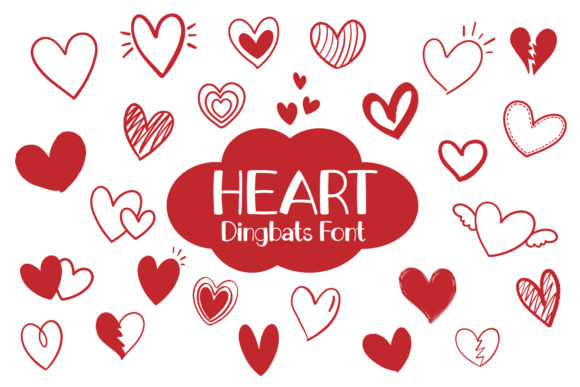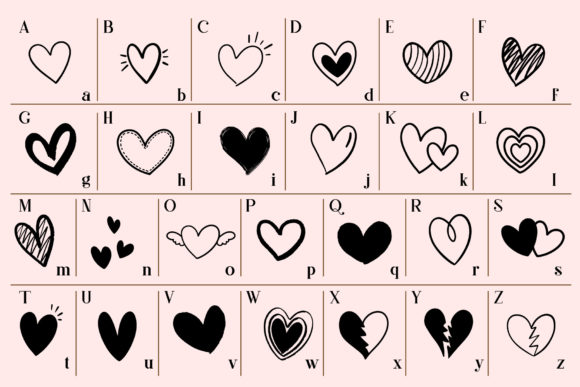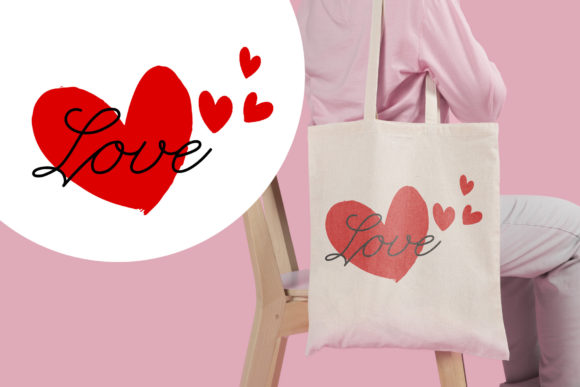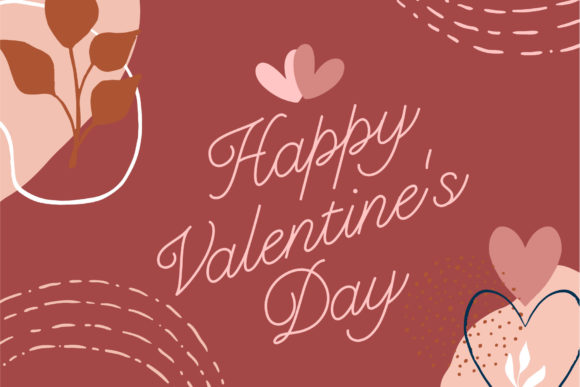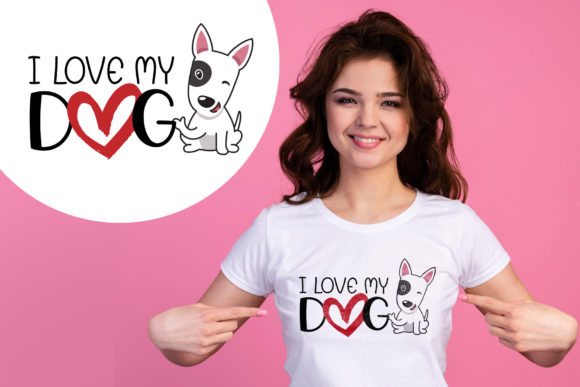
Heart Font
About Heart Font
Heart is a lovely dingbats font that is perfect for a wide range of projects. With its collection of heart-shaped glyphs, it adds a touch of romance, sweetness, and charm to any design.
Whether you’re working on blog posts, advertisements, invitations, greeting cards, planners, photo albums, decorations, or any other creative project, Heart can be a wonderful addition. It allows you to incorporate heart symbols effortlessly, adding visual appeal and conveying a message of love, affection, or celebration.
Using Heart in your designs is simple. Just type the corresponding letters or characters, and the heart symbols will appear. You can mix and match different heart variations, sizes, and styles to create unique compositions that suit your project’s aesthetic.
The versatility of Heart makes it suitable for both digital and print media. You can use it in your graphic design software to create eye-catching visuals for online content, or include it in your print materials for a charming and decorative touch. From social media graphics to wedding invitations, Heart can enhance various design elements and create an engaging visual experience.
Additionally, Heart’s simplicity and elegance make it compatible with different design styles and themes. Whether your project has a minimalist, whimsical, vintage, or modern aesthetic, the heart symbols from this font can blend seamlessly and enhance the overall visual impact.
Furthermore, Heart is scalable, meaning you can resize the heart symbols without losing quality. This allows you to adapt the size of the hearts according to your design requirements and ensures crisp and clear visuals at any scale.
In summary, Heart is a versatile and delightful dingbats font that adds a touch of romance and charm to your designs. Its wide range of heart symbols makes it suitable for various projects, from digital graphics to printed materials. So, go ahead and incorporate Heart into your creative endeavors to bring a heartfelt and visually appealing element to your work.